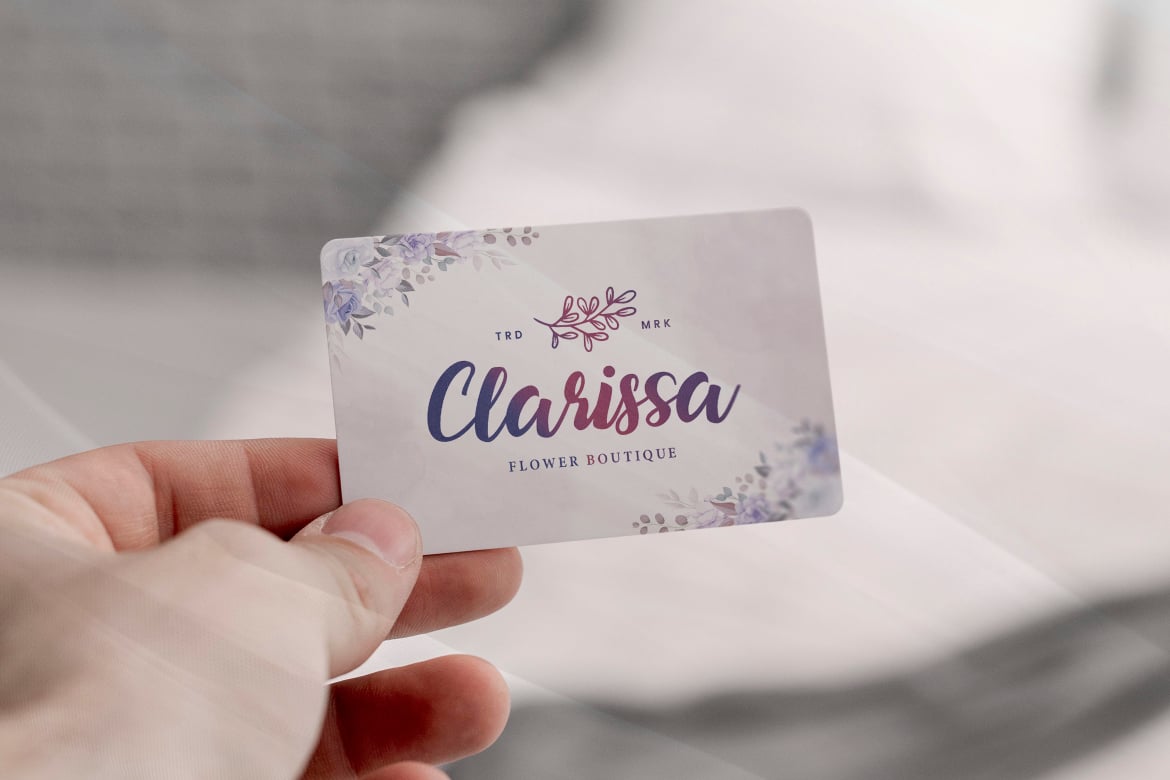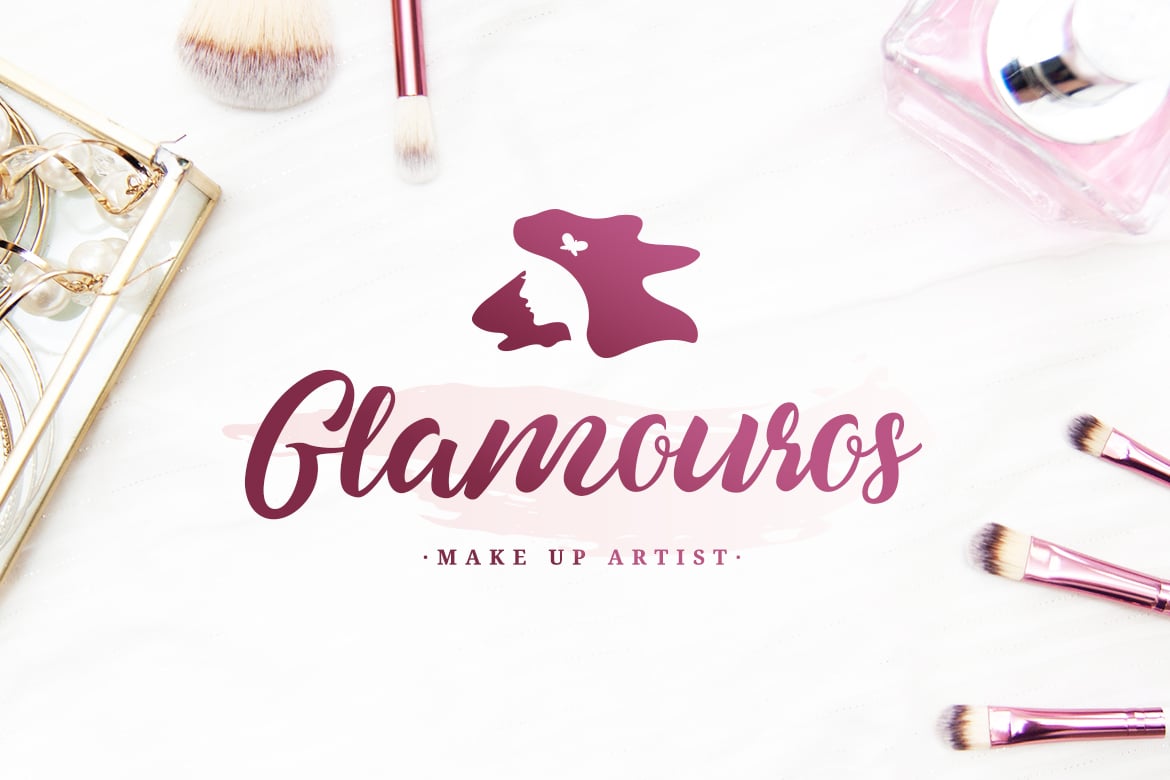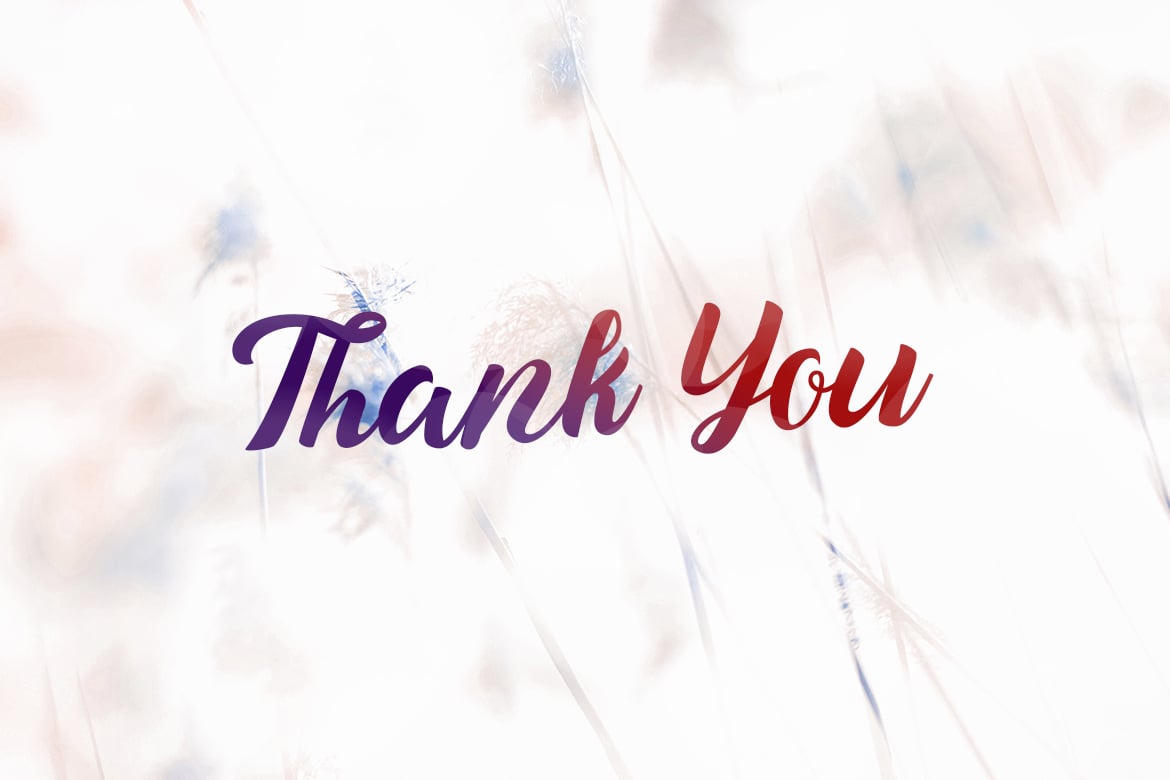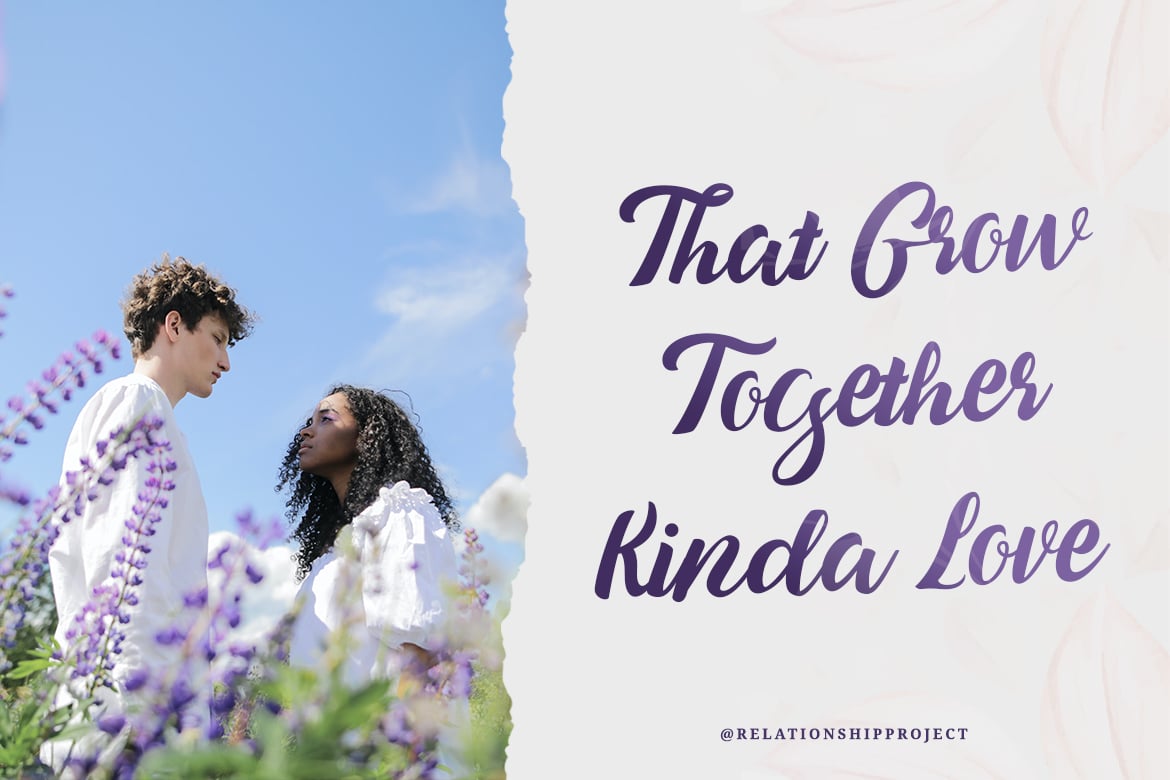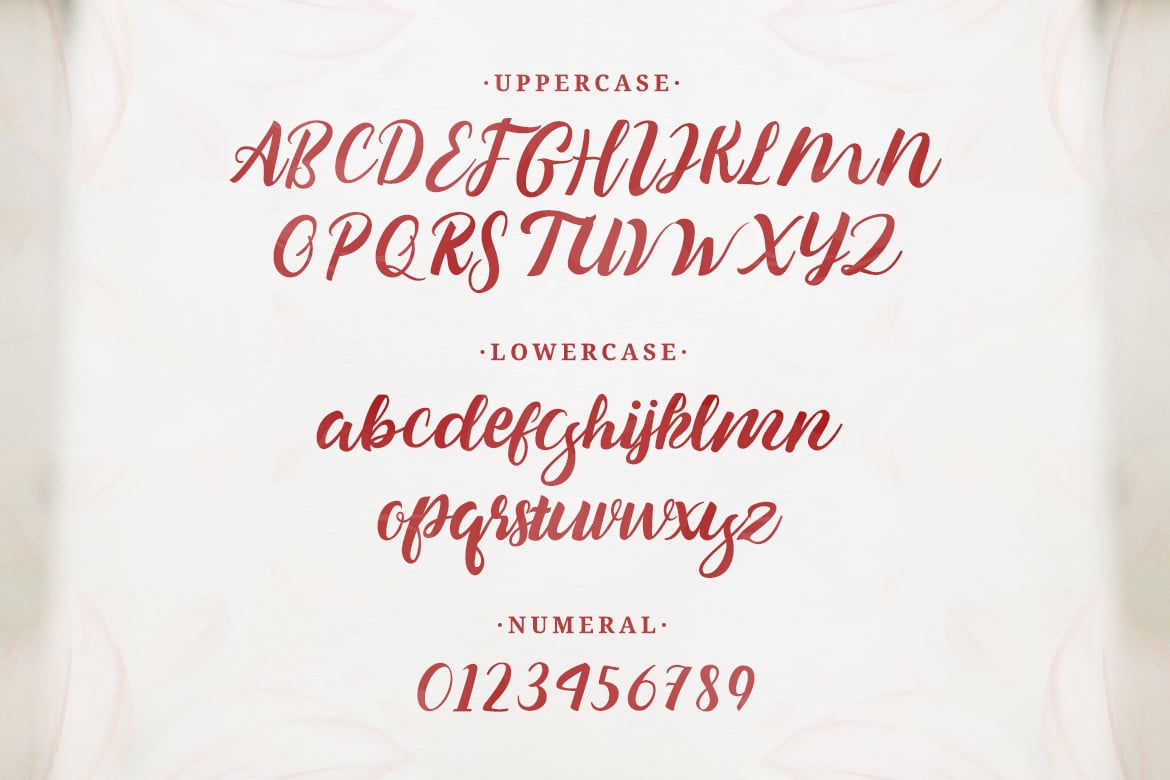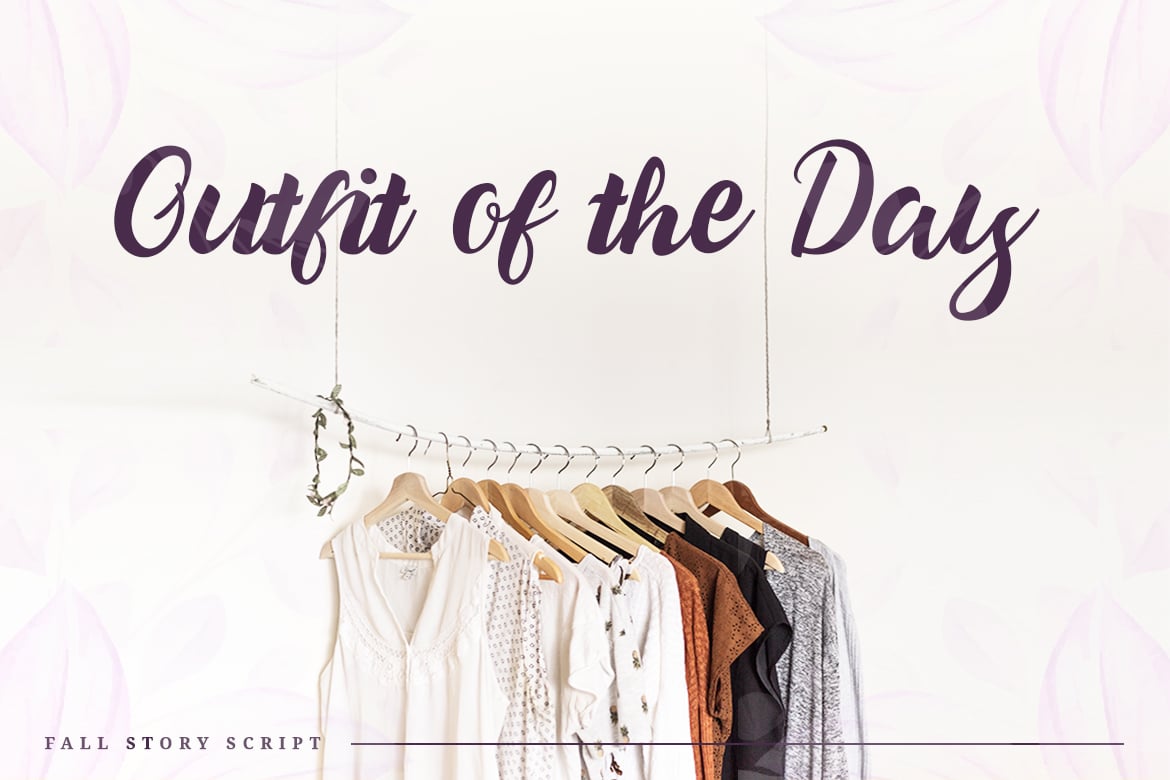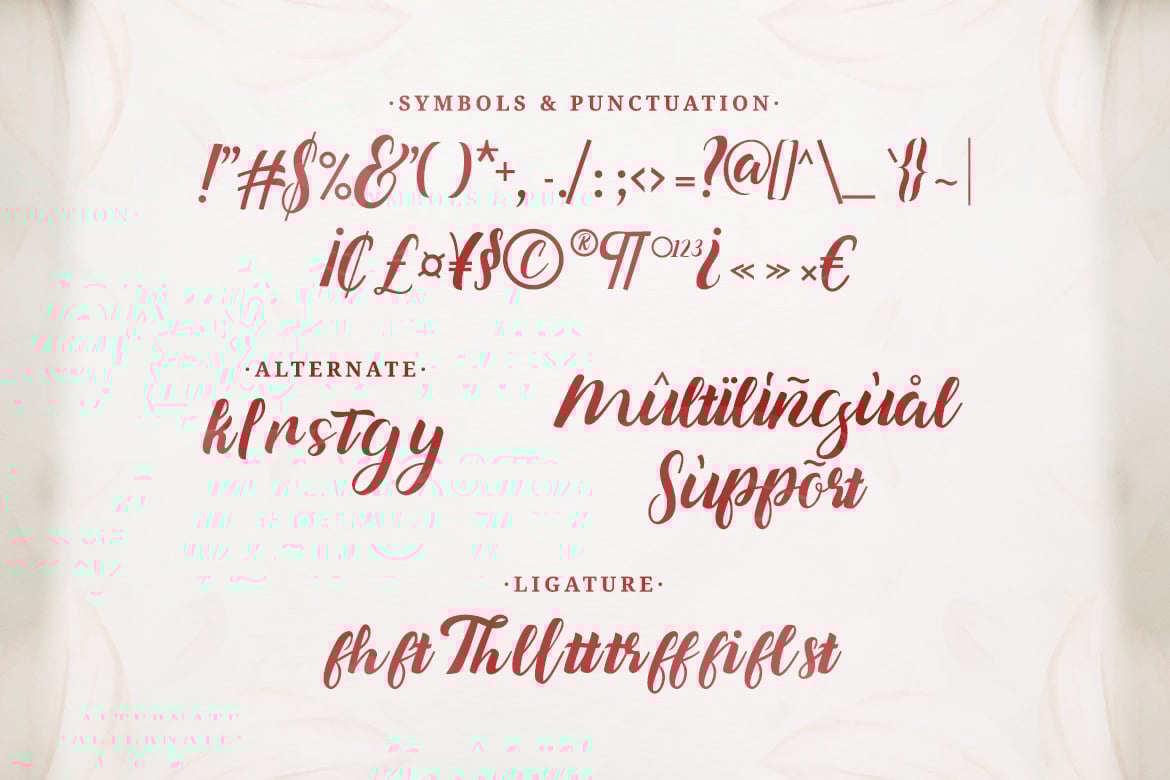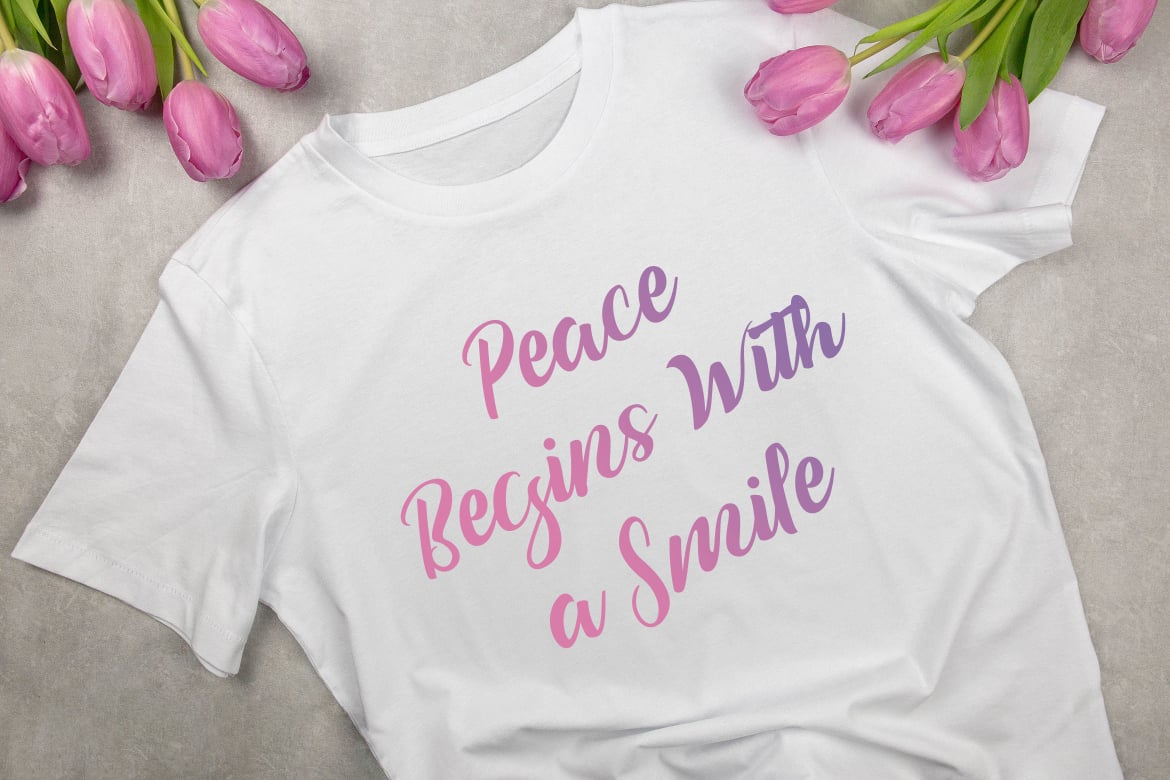
Fall Story – Casual Brush Font
Fall Story is a classy and lovely script font. It has a elegant style and is perfect for creating original designs.
This lovely casual brush font is really great for a logo, quotes, headings, wedding invitations, posters, and many others.
- Symbols & Punctuation